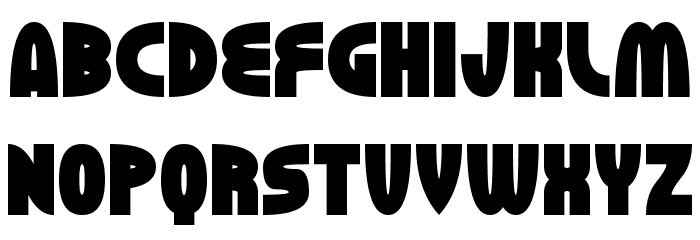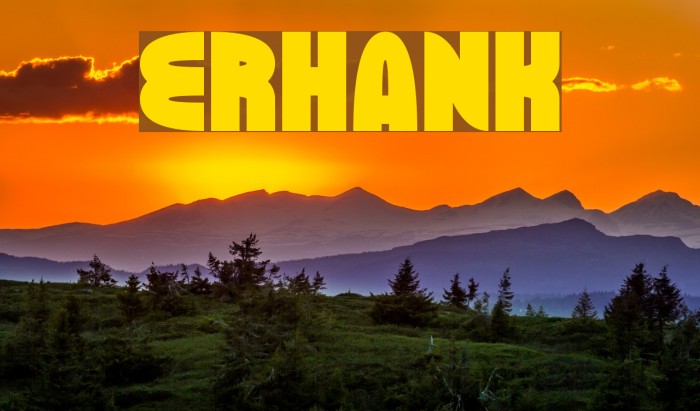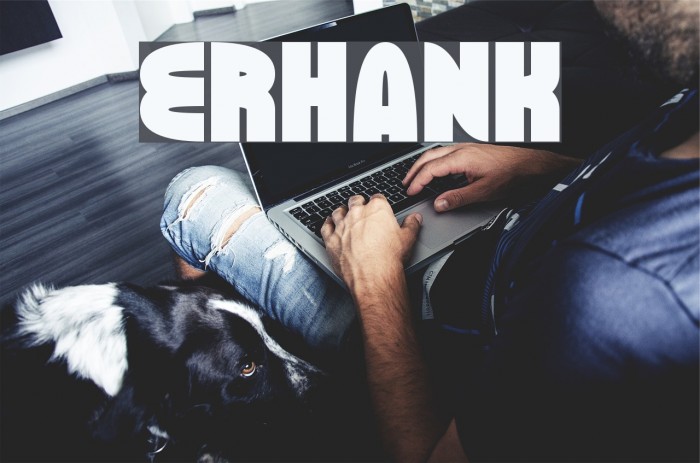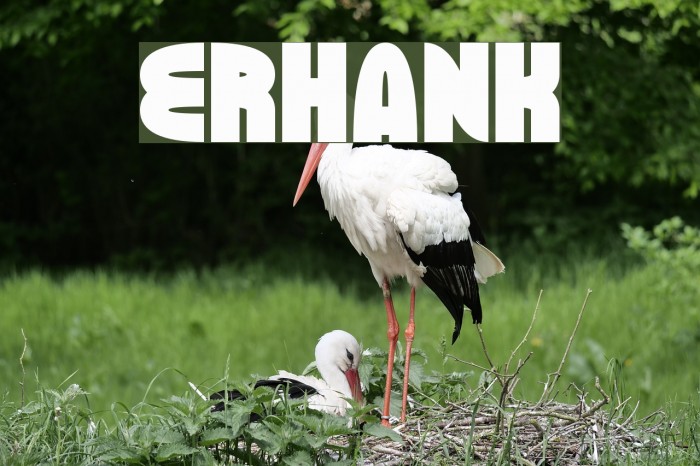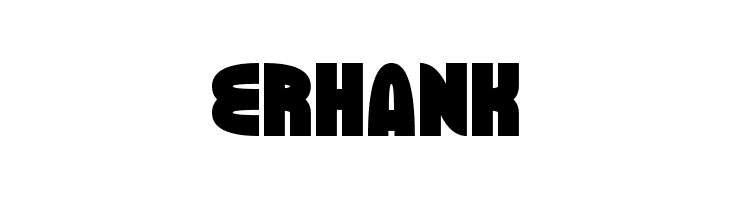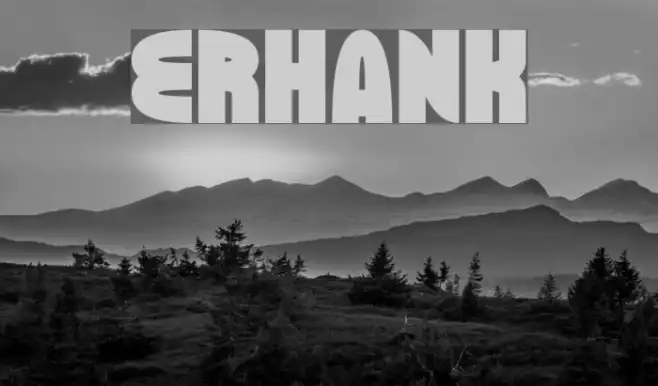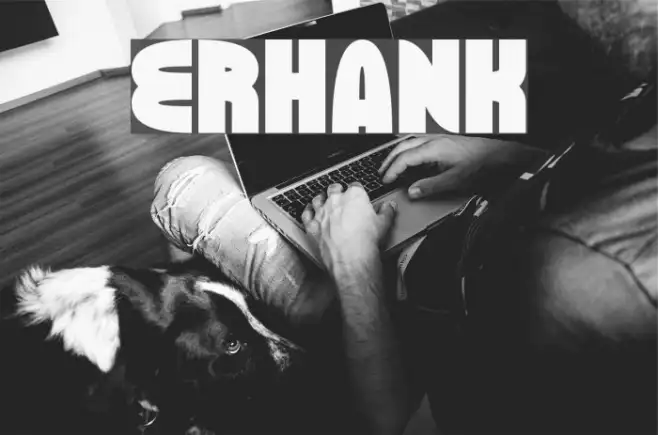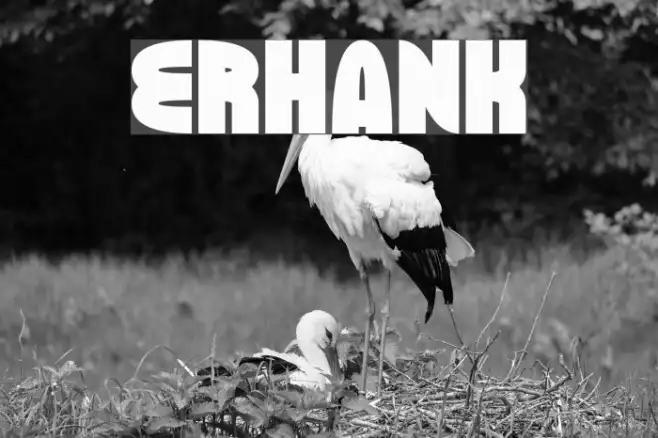
ERHANK Font
This font features bold, geometric shapes with a strong presence. The characters are constructed with thick strokes and a uniform weight, creating a cohesive and impactful look. The design is modern and playful, with rounded edges that soften the overall appearance. The uppercase and lowercase letters maintain a consistent style, while the numbers and special characters complement the alphabet with similar boldness and geometric flair. This font is ideal for making a statement in any design project.
A bold, geometric font with a modern and playful style.
- Proposed Projects: Ideal for posters, logos, headlines, and branding materials that require a strong visual impact.